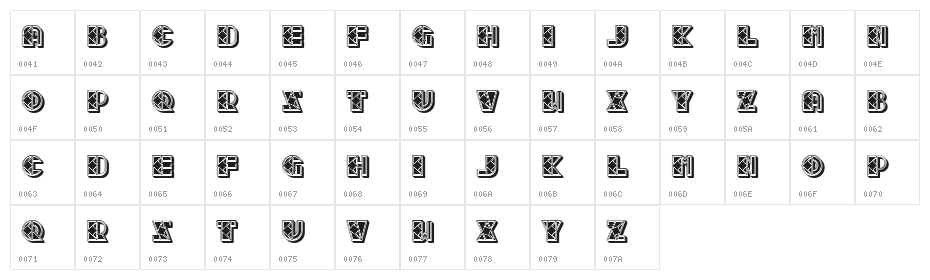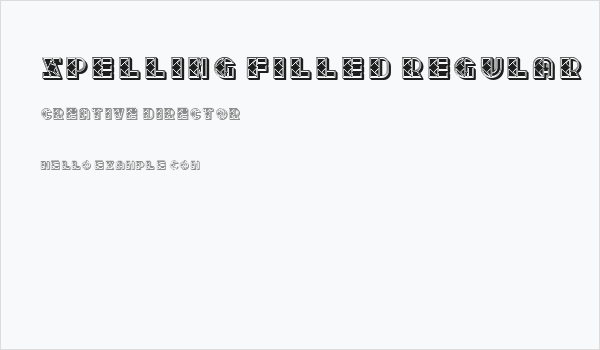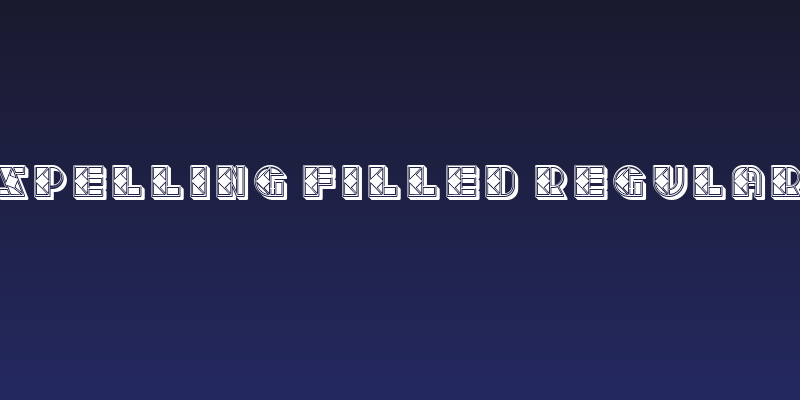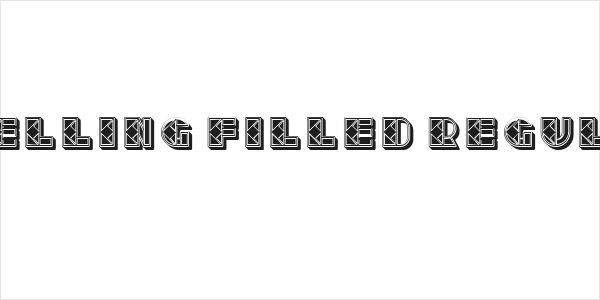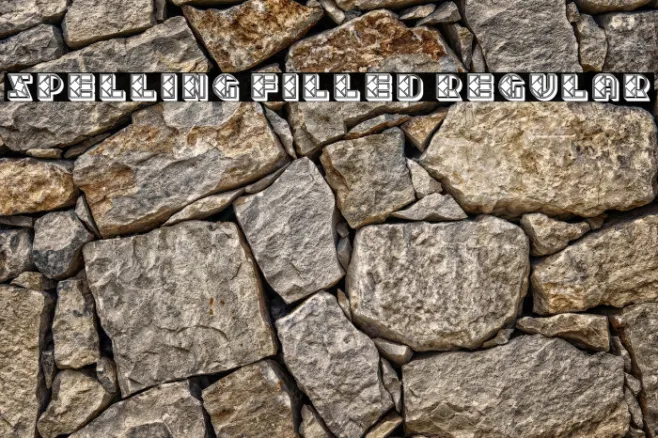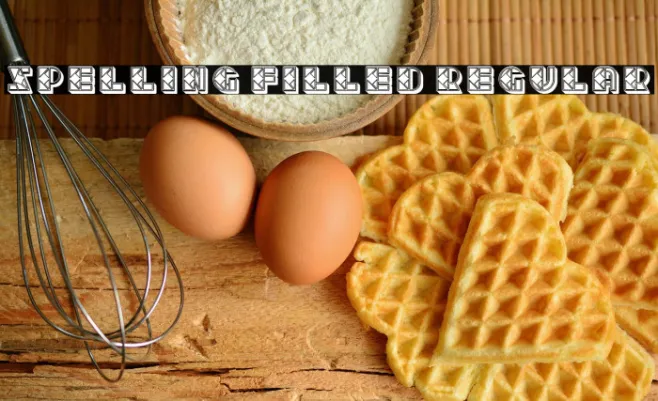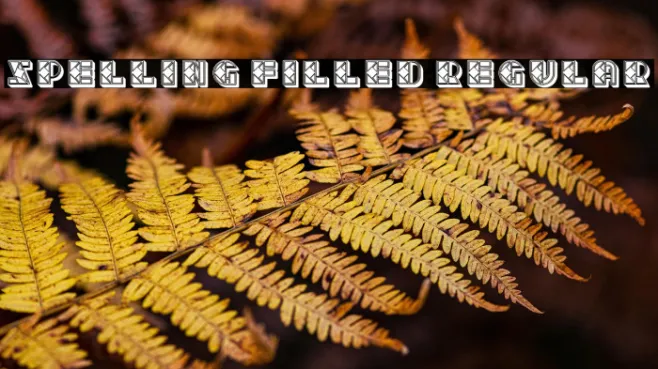
Spelling Filled Regular Font
Spelling Filled Regular Description
This font features a bold, geometric design with intricate line patterns filling each character. The letters are uppercase and have a three-dimensional appearance, giving them a striking and modern look. The use of negative space and internal lines creates a unique visual texture that stands out. The font is highly decorative, making it suitable for eye-catching designs. The characters are evenly spaced, maintaining a consistent and balanced appearance across the text. This font is ideal for projects that require a bold statement and a contemporary aesthetic.
| Proposed Projects | Ideal for posters, logos, branding, and any design needing a bold, modern statement. |